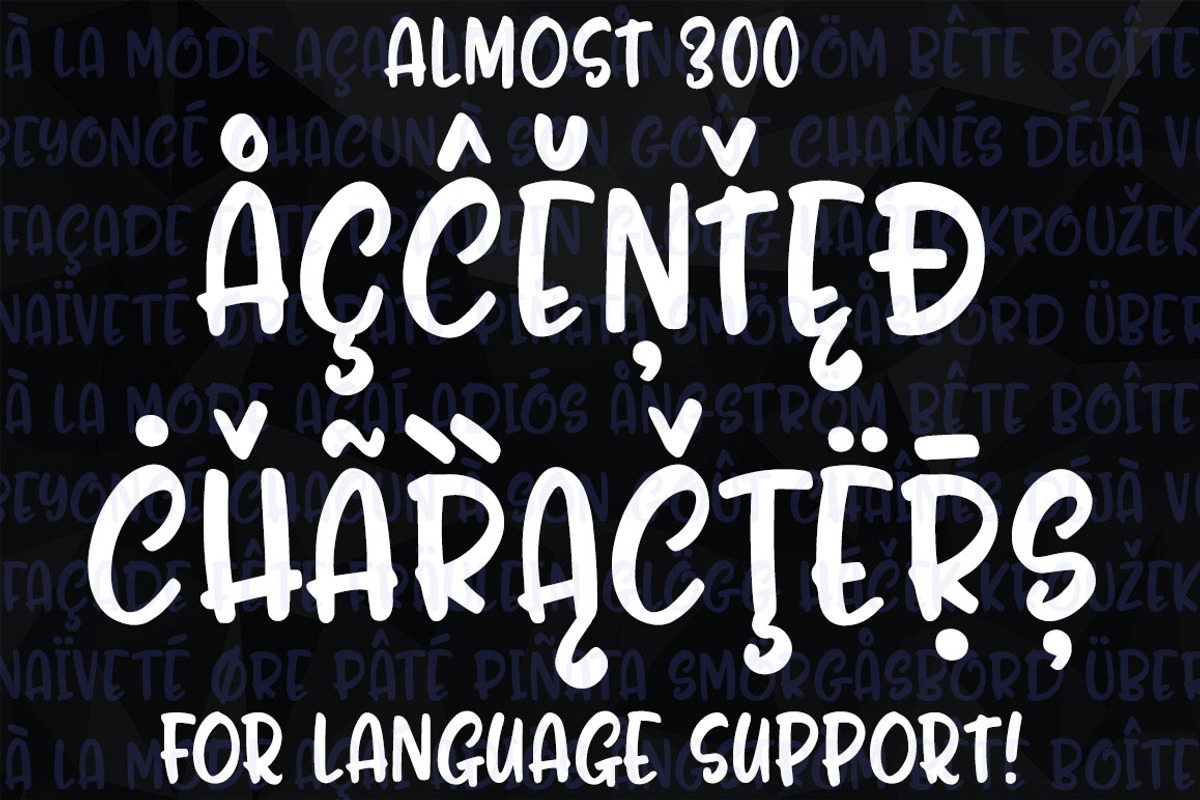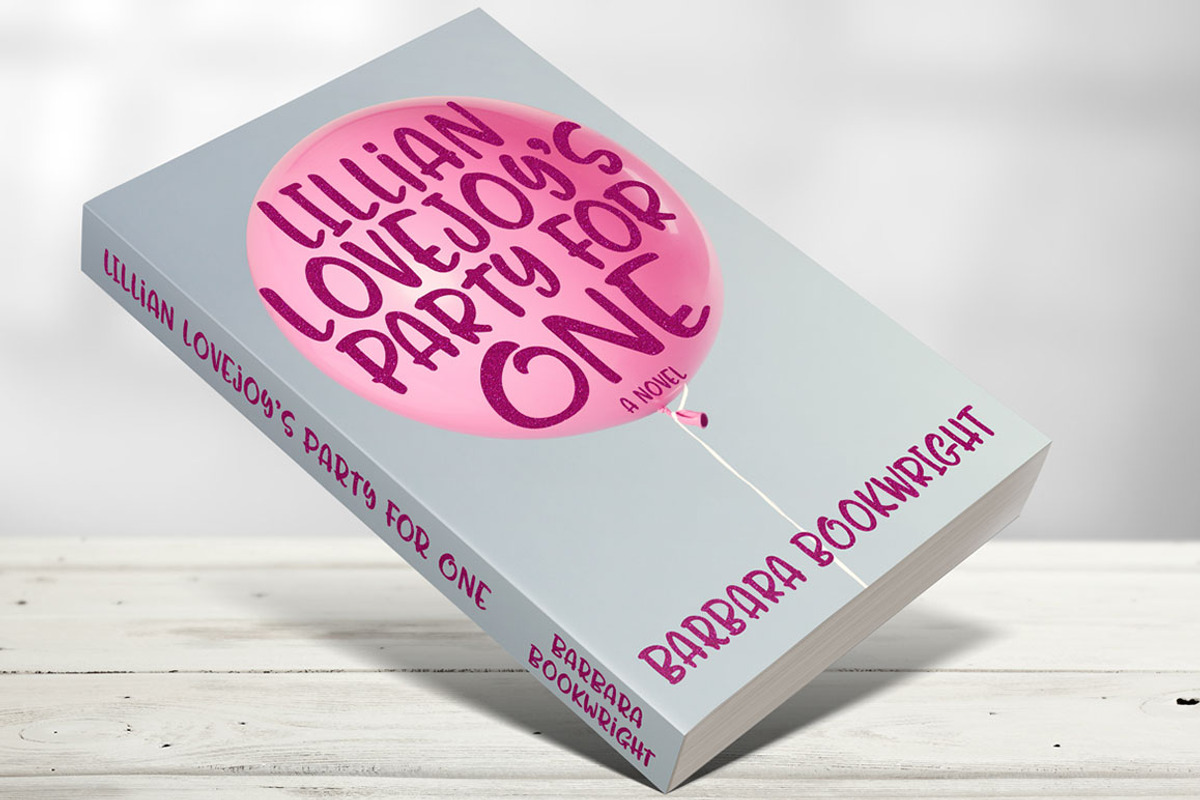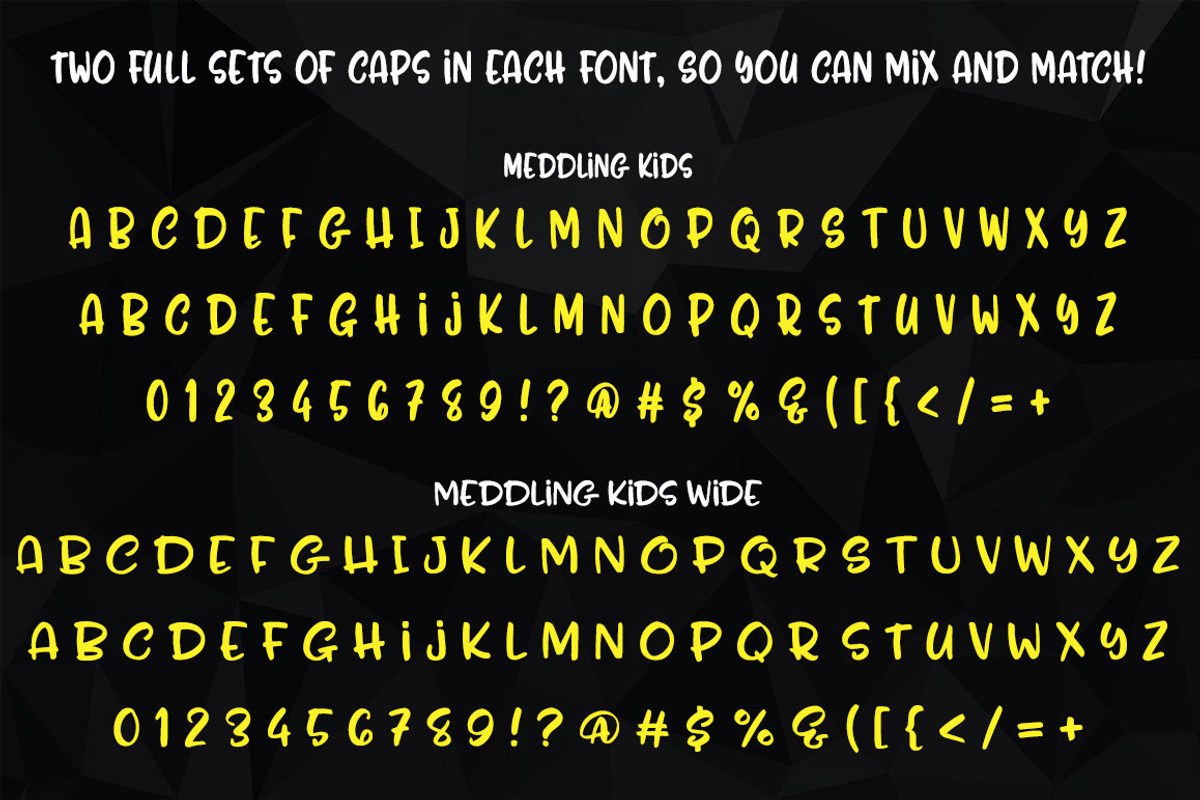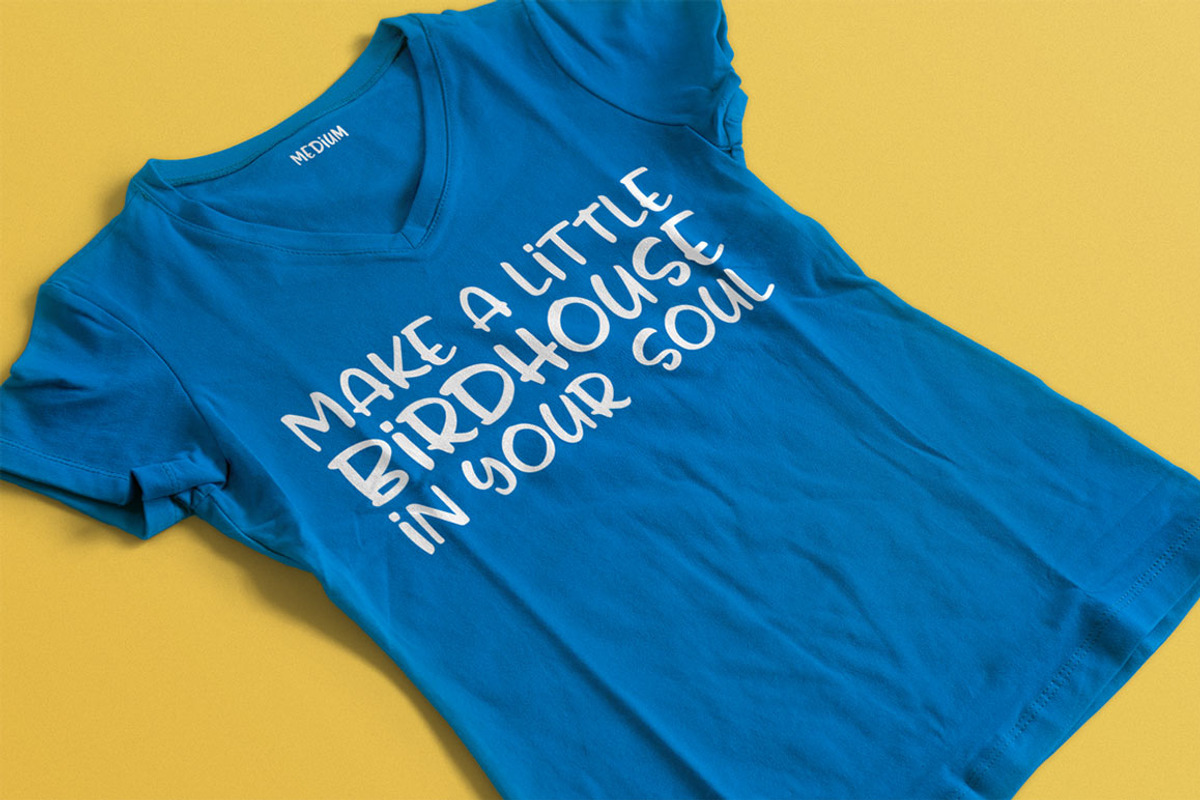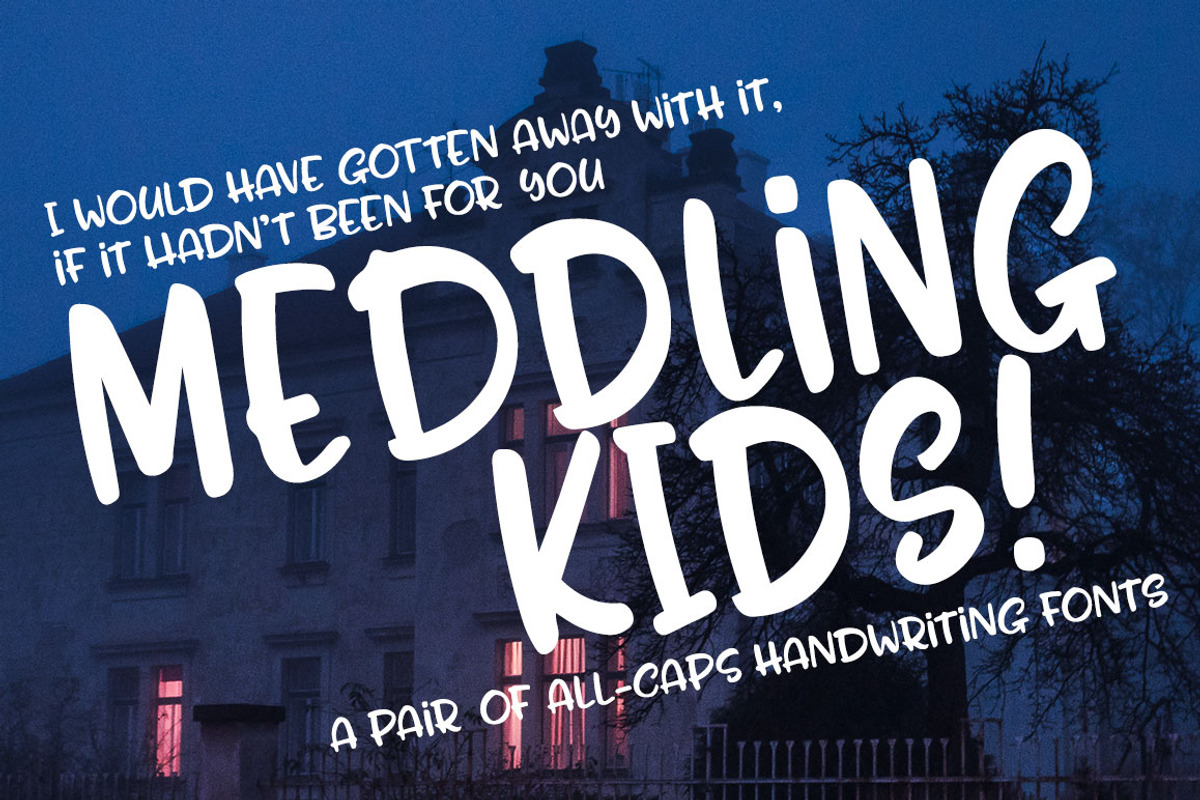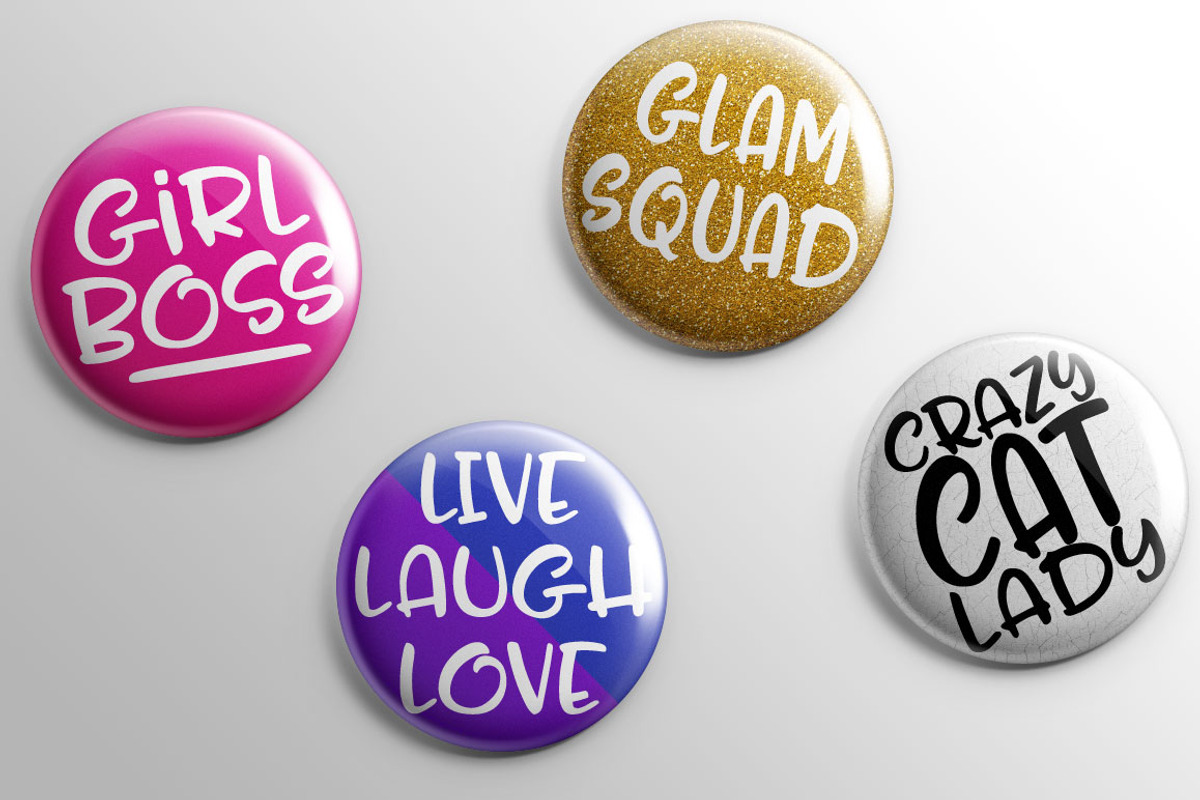
Meddling Kids - handwriting font
Meddling Kids - handwriting font by Missy Meyer is a font selected for branding, posters, packaging, typography.
- This is a double-uppercase handwriting font (two sets of uppercase letters, one set mapped to the uppercase and one to the lowercase) so you
Why Meddling Kids - handwriting font is worth a look
Meddling Kids - handwriting font by Missy Meyer fits naturally into Branding, posters, packaging, typography.